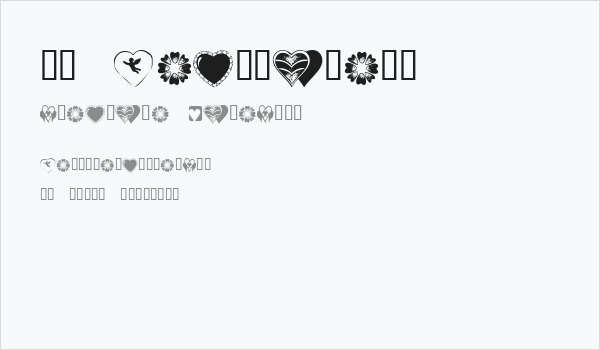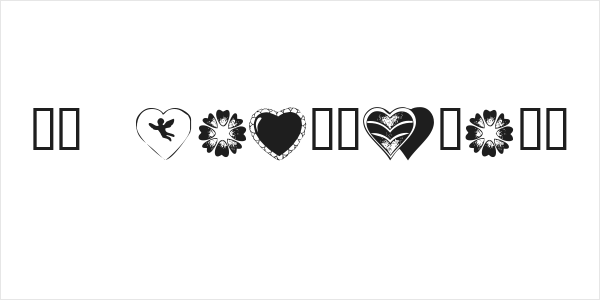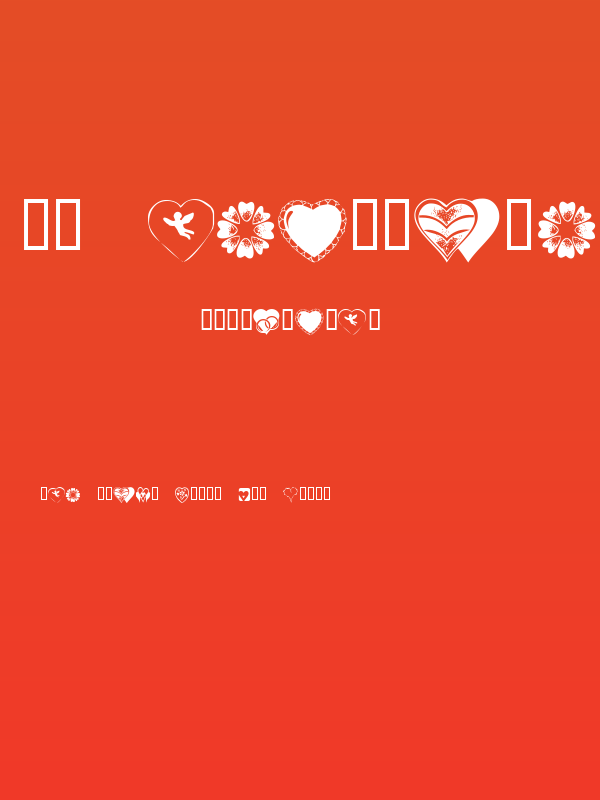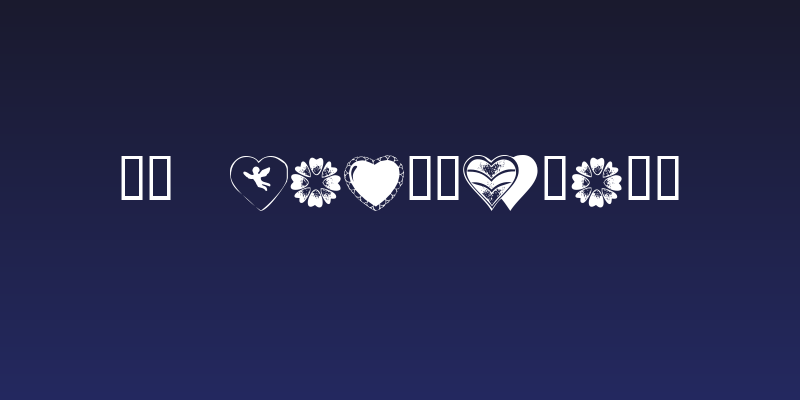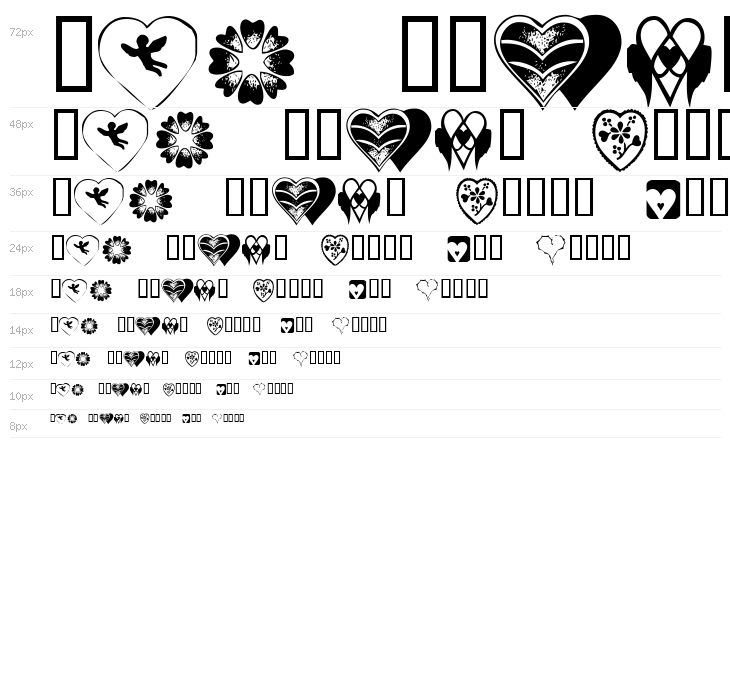
KR Heartiness Font
KR Heartiness Description
This is not a valid font. The image contains decorative heart symbols and shapes rather than a complete set of alphanumeric characters. These elements are more suited for decorative purposes rather than typographic use in text. The symbols include various heart designs, some with intricate patterns and others with simple outlines. They are visually appealing and can be used for embellishments or thematic designs.
| Use Case | Decorative elements, not suitable for text. |
| Proposed Projects | These heart symbols can be used for decorative projects such as greeting cards, invitations, or digital art where a romantic or affectionate theme is desired. |